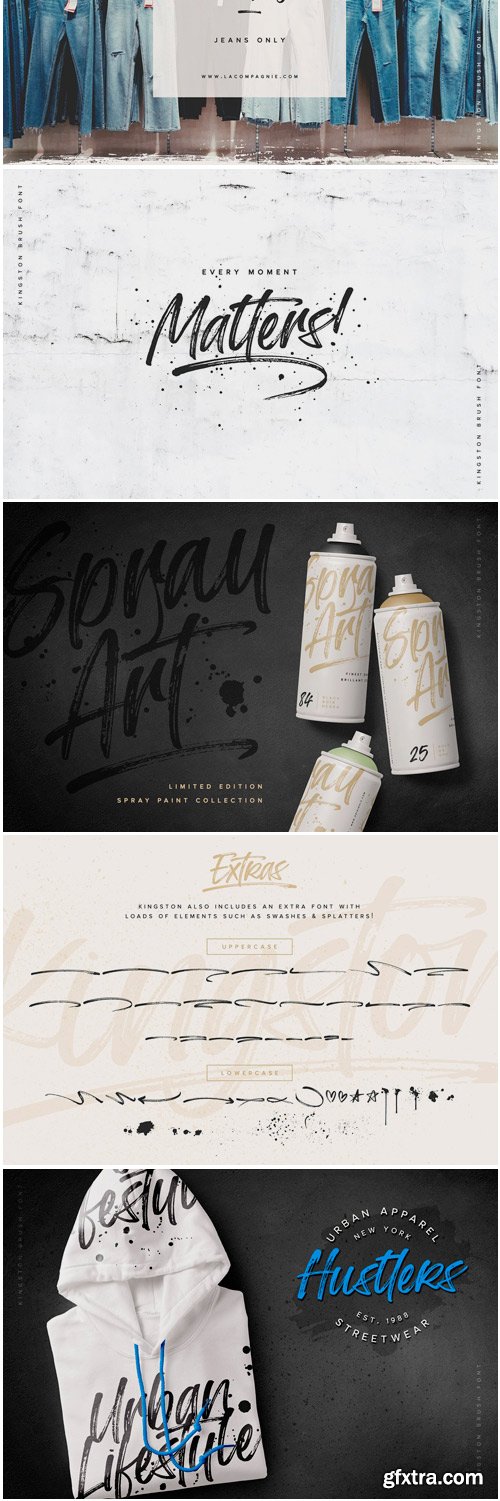
CM - Kingston Brush Font + Extras 3957235
- Introducing Kingston an handwritten font with a high detailed dry brush texture. Kingston has been designed to fit a wide range of projects from urban style to classic branding with a full alternative characters set to completely change the look of your design. Kingston also includes a set of 52 hand-drawn elements that will add a nice finishing touch to your Kingston text. You can use it for business branding, Instagram quotes, blog headers, fashion apparel, stationery and more...